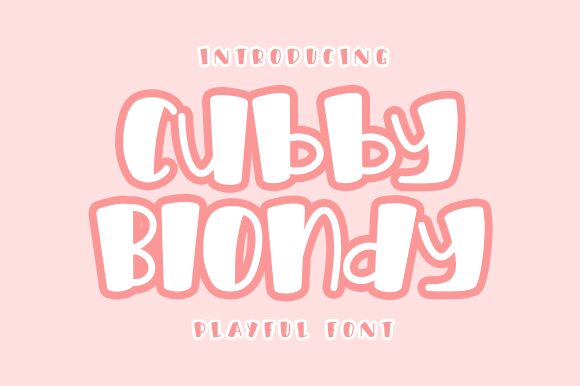
Cubby Blondy
Cubby Blondy, a captivating display font crafted by the talented Nirmala Creative, exudes a whimsical charm that instantly captures the eye. With its playful, cartoon-inspired strokes and bold, confident presence, this font emanates a sense of playfulness and vibrant energy. The rounded, organic forms of the letters create a delightful, approachable aesthetic, making Cubby Blondy an irresistible choice for projects seeking a touch of playfulness and personality.
Cubby Blondy's versatility shines through, making it a versatile choice for a wide range of design applications. From children's book covers and toy packaging to social media graphics and quirky branding, this font's unique character and strong visual appeal lend themselves effortlessly to projects that aim to evoke a sense of joy, imagination, and carefree celebration.